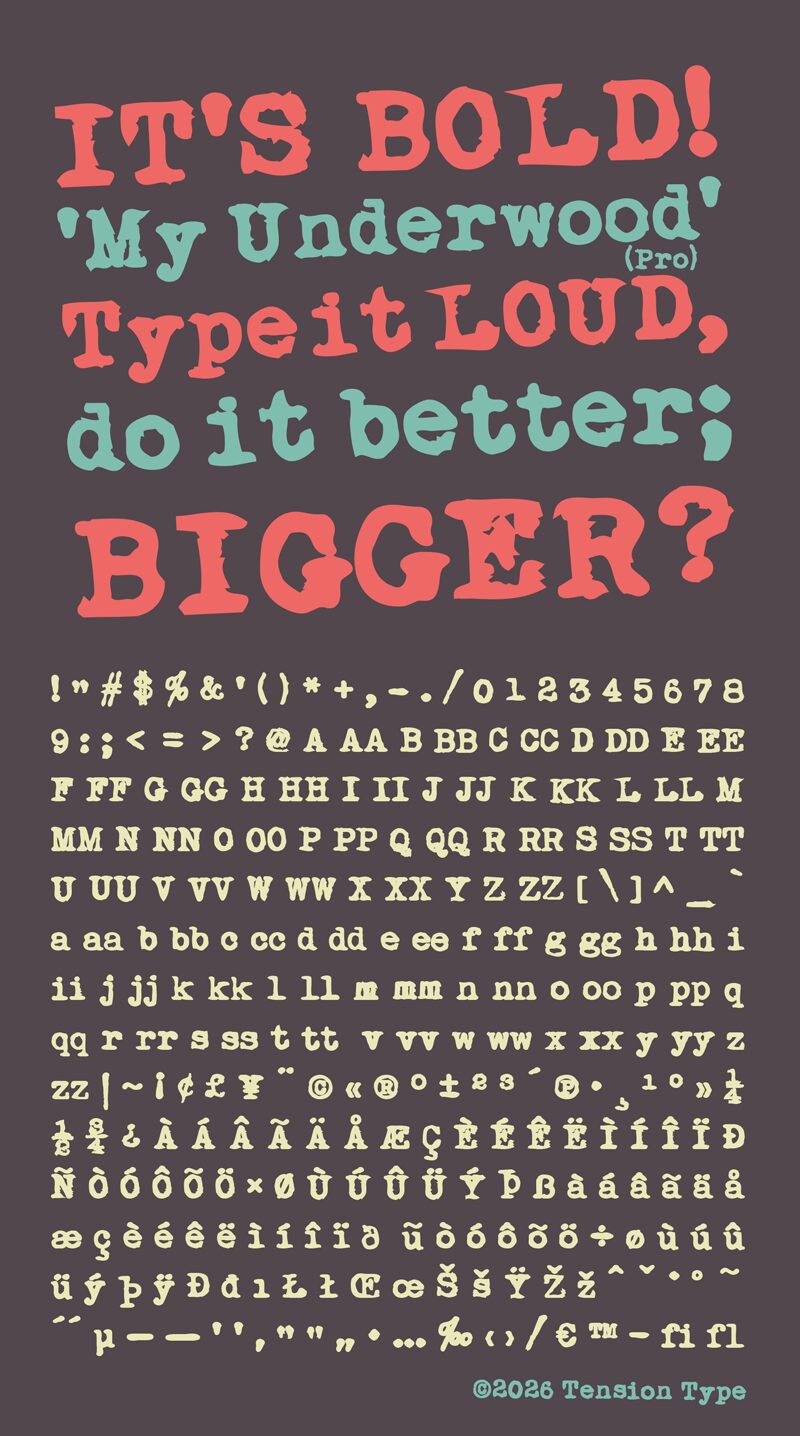
My Underwood Pro font family designed by Tension Type comes inspired by the iconic Underwood typewriters. It perfectly replicates the unique texture obtained with such vintage typing machines. The font is simple and straightforward; it is a free font for personal use, with additional styles that upgrade the pack. Going through the characters one by one, we can notice the particular mistakes that are common in typed texts, which we can never obtain with classic fonts.
Prepare your texts and titles without having to go through the terrible sound of traditional typewriters with My Underwood. The font would perform perfectly in branding and identity designs; or maybe magazine layouts and covers. Use it in comics and posters with a noir or vintage theme, or even add it to your next digital or print project.
I have updated My Underwood to include a wide range of characters and standard alternatives. Additionally, repairs have been made to the font, ensuring it is as professional as possible. A regular version is also available for use alongside this font.